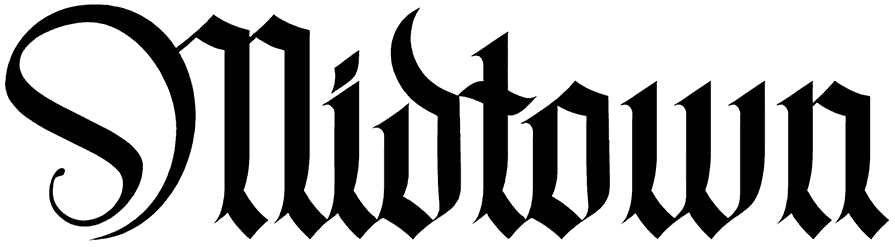
Midtown Font
Your words will be on fire with the hot gothic flair of Midtown as the whole world watches. How often do you get the chance to work with a cool Renaissance font like this and brag to everyone? Plus, there’s an extra style for you to try.
The antique vibes of Midtown are so obvious that they can be considered a religious font or used for your website designs related to history, covering forgotten cultures and odd rituals back then.